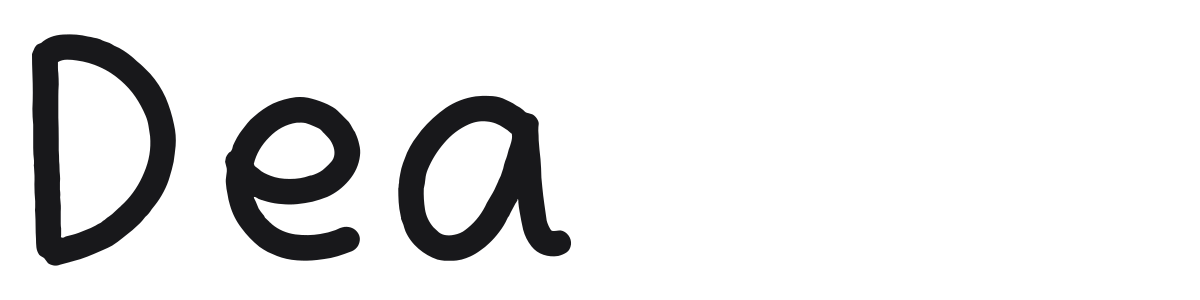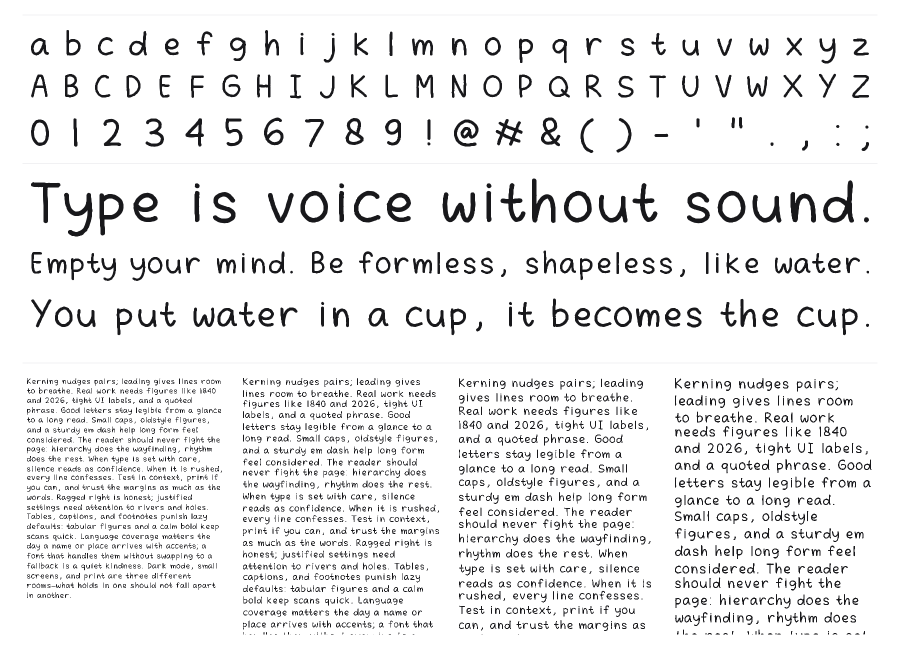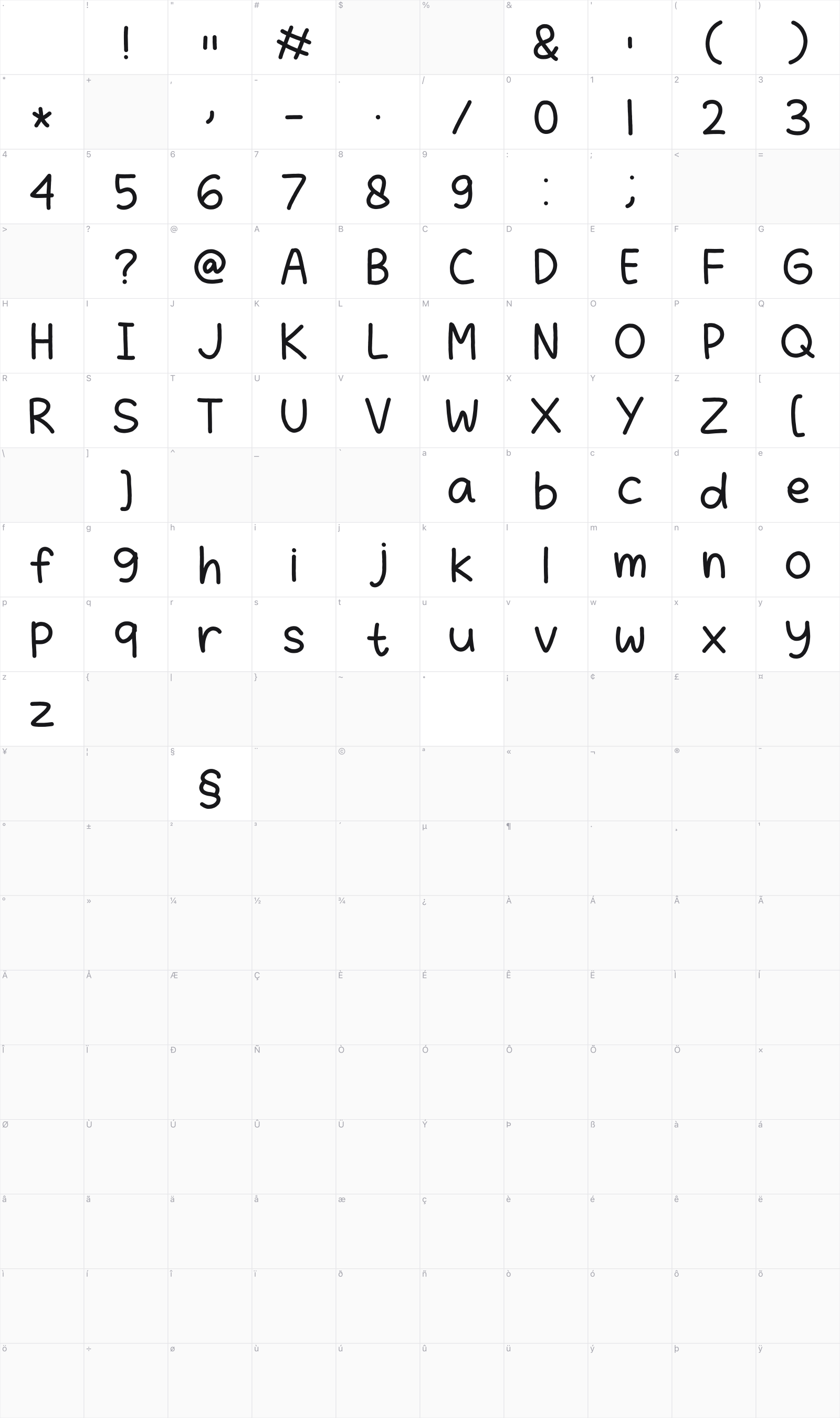
Dea
Dea is a handwriting font digitized directly from the author's own handwriting, giving it an authentic, unpolished charm. The rounded, monoweight strokes and natural spacing variations keep it feeling genuinely personal rather than templated. It works well in short bursts where a warm, human touch matters.